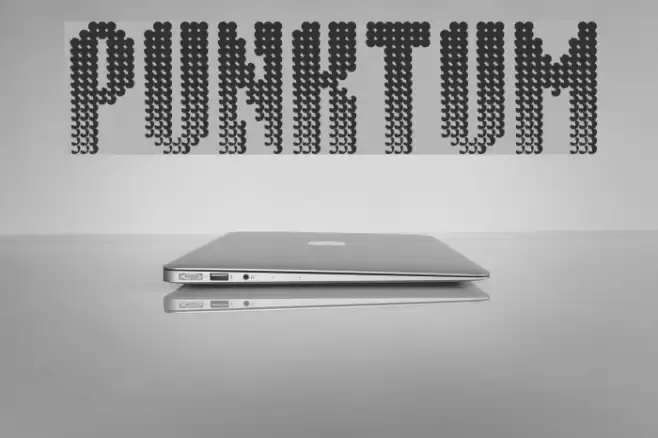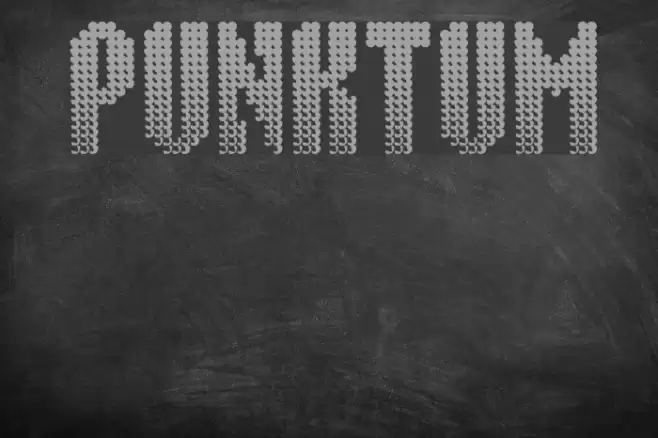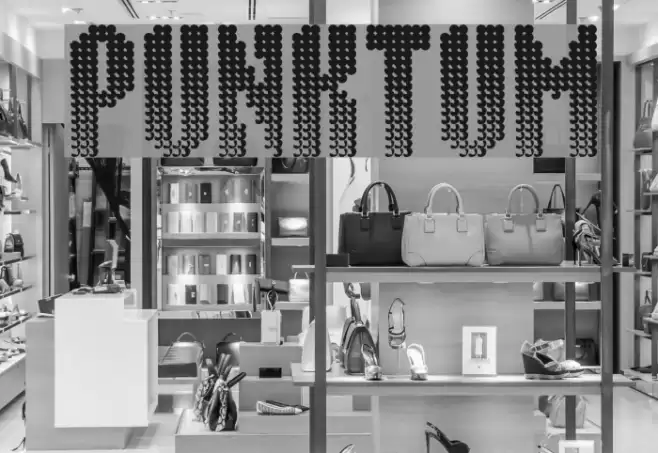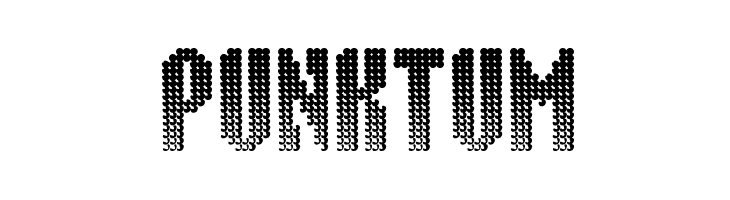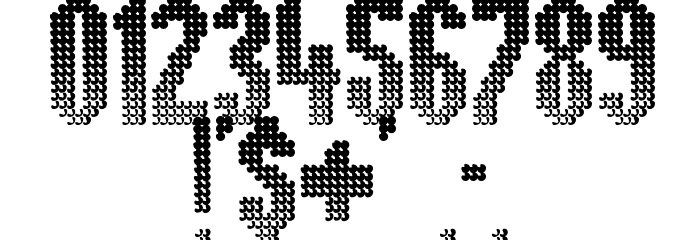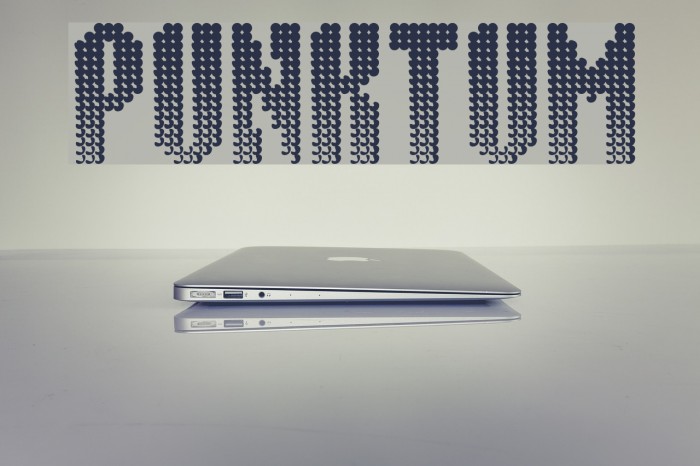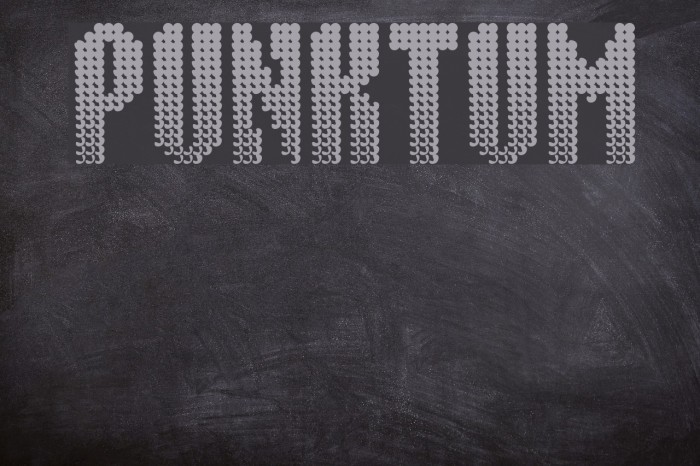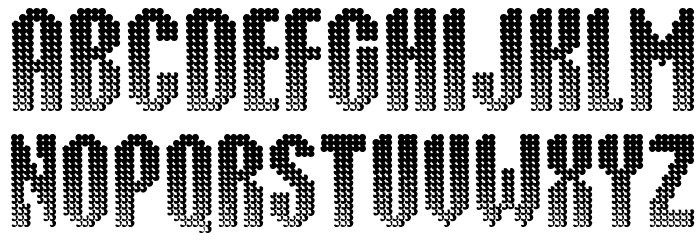
Punktum Font
Punktum Description
This font features a unique and eye-catching design composed of small circular dots that form each character. The letters are bold and structured, creating a sense of depth and texture. The use of dots gives it a digital or pixelated appearance, making it ideal for modern and tech-themed projects. The uppercase and lowercase letters maintain a consistent style, while the numbers and special characters are equally distinctive, ensuring a cohesive look across all text elements. The font's playful yet structured design makes it versatile for various creative applications.
A bold, dot-patterned font with a modern, digital aesthetic from Uncategorized fonts.
- Proposed Projects: Ideal for digital art, tech branding, modern posters, and creative advertising.